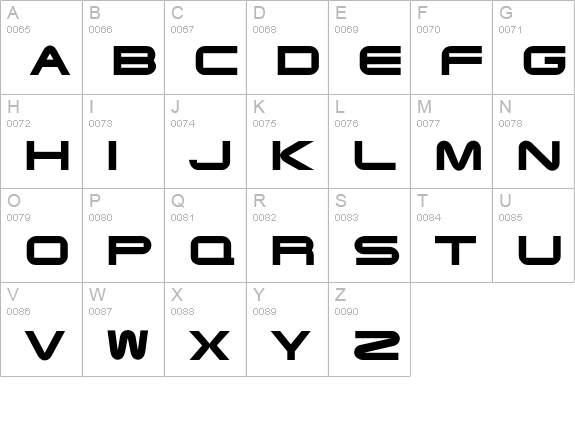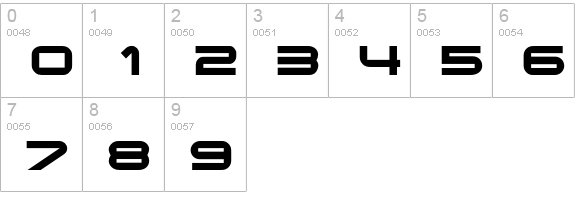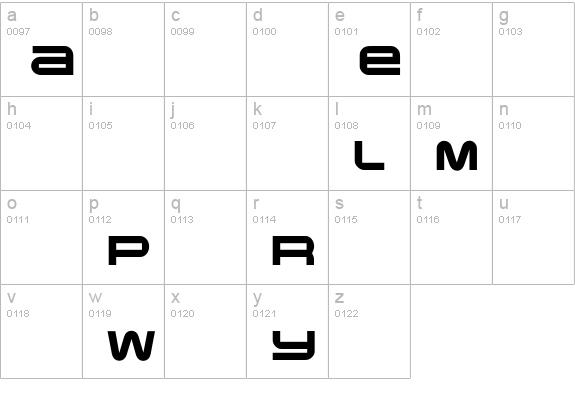
Fairbanks Font Details
Fairbanks font is a modern and stylish typeface that exudes sophistication and elegance. With its clean lines and sleek curves, Fairbanks is perfect for a wide range of design projects, from branding to editorial design. This versatile font offers a timeless aesthetic that will elevate any design it is used in. One of the best features of Fairbanks font is that it is available for free download at FontsMarket.com. This means that you can easily access this high-quality font without any cost, making it a valuable addition to your font library. Whether you're a seasoned designer or just starting out, Fairbanks font offers a professional and polished look that will make your designs stand out. With its combination of classic and contemporary elements, Fairbanks font is sure to make a lasting impression on your audience. Don't miss out on the opportunity to enhance your design projects with this exceptional font, available for free at FontsMarket.com.